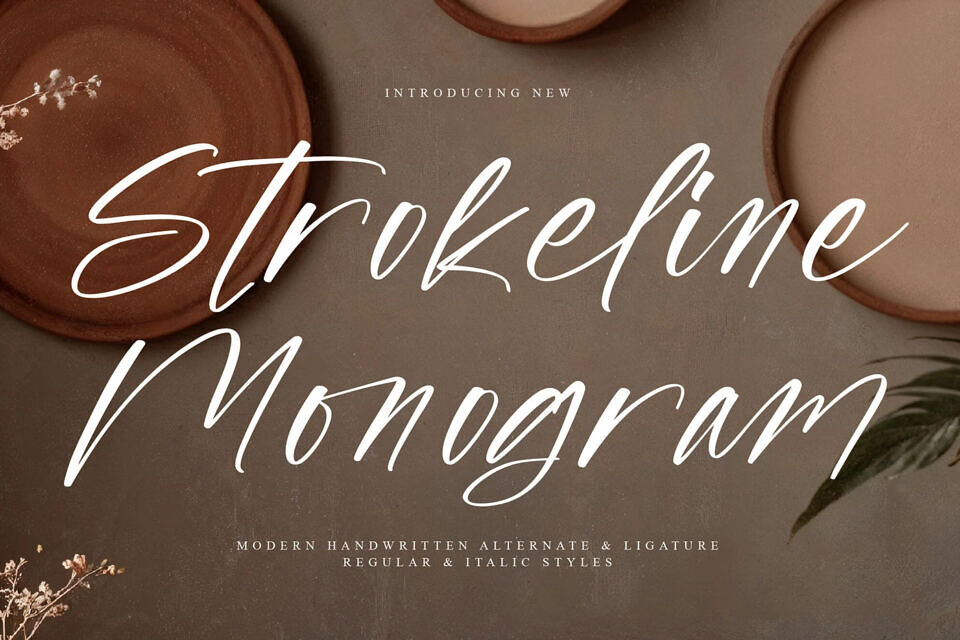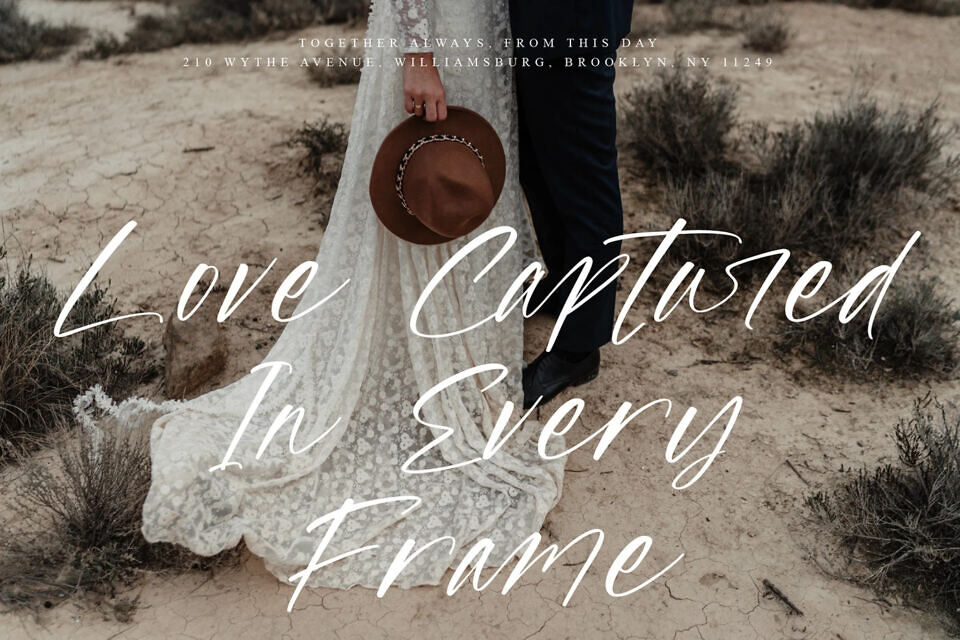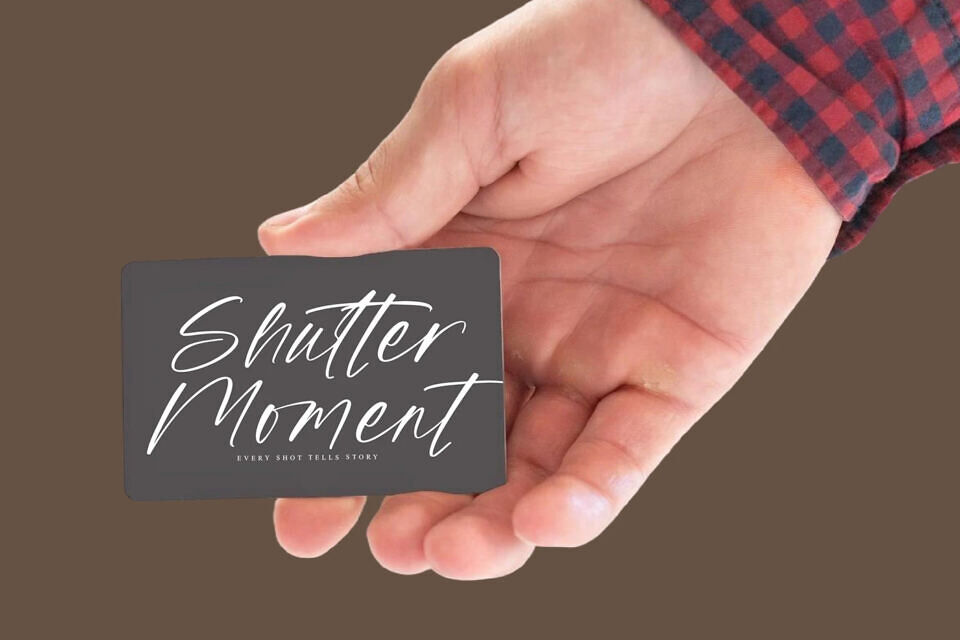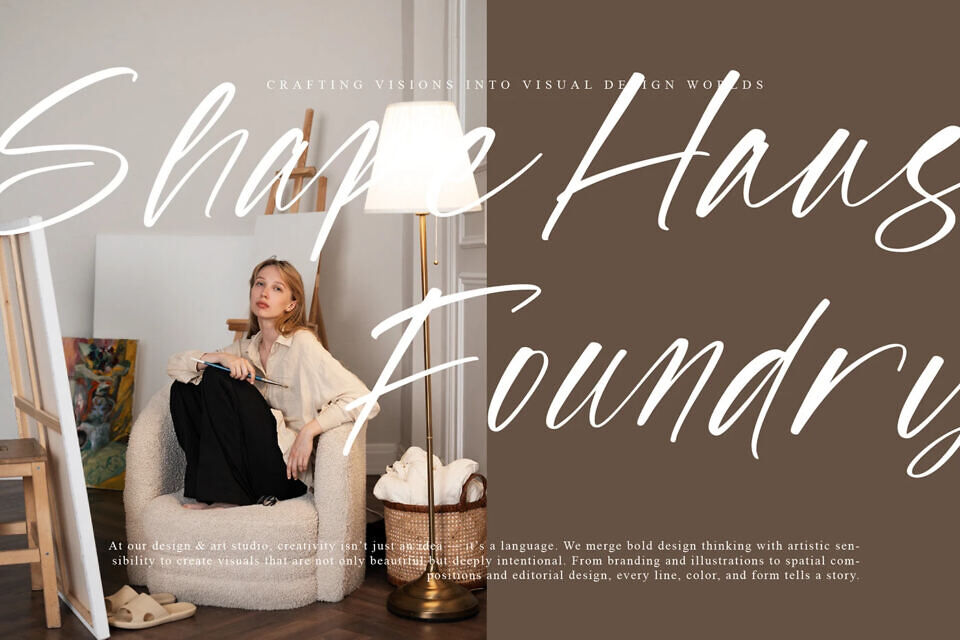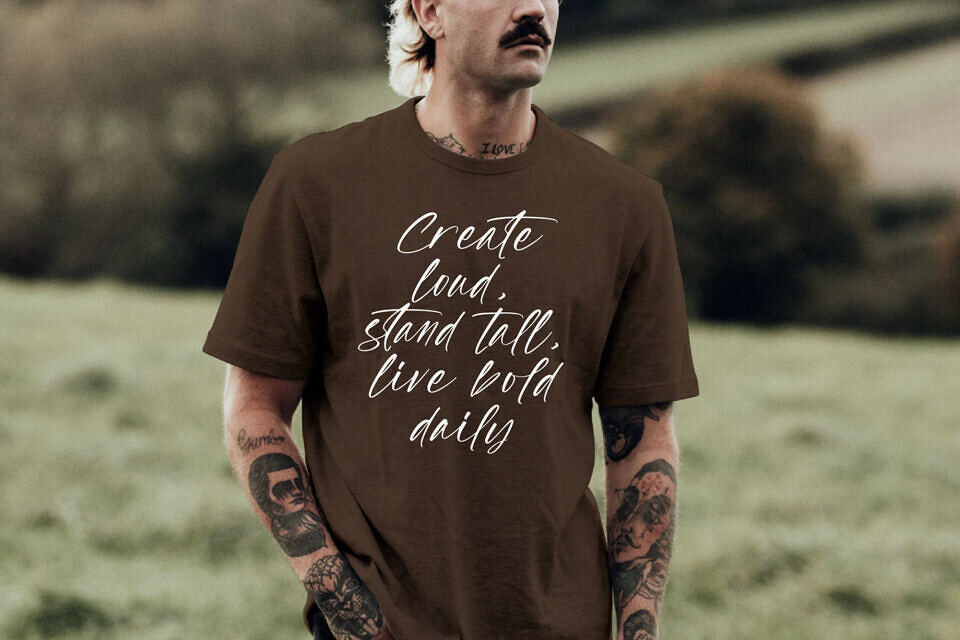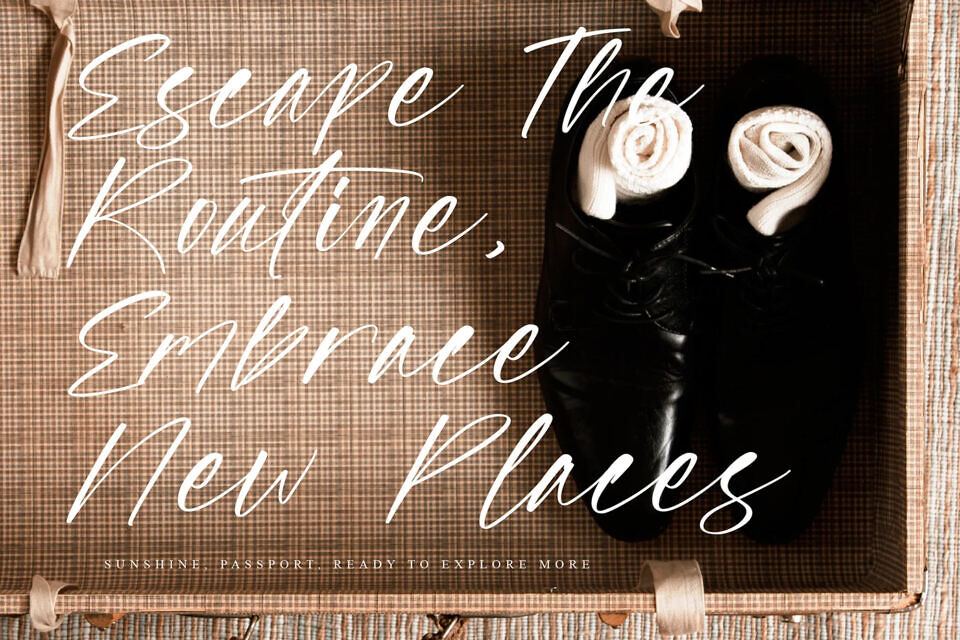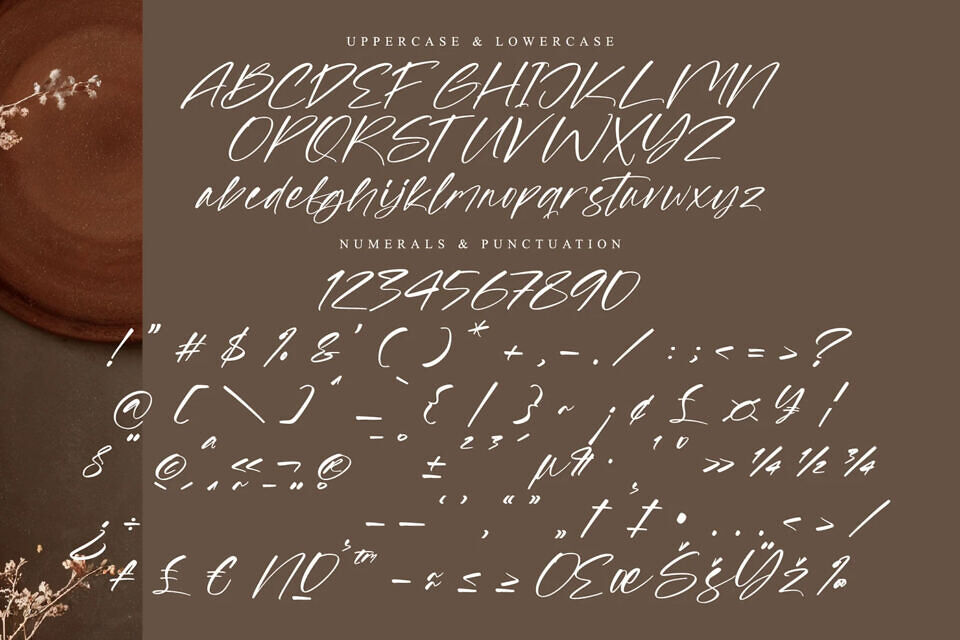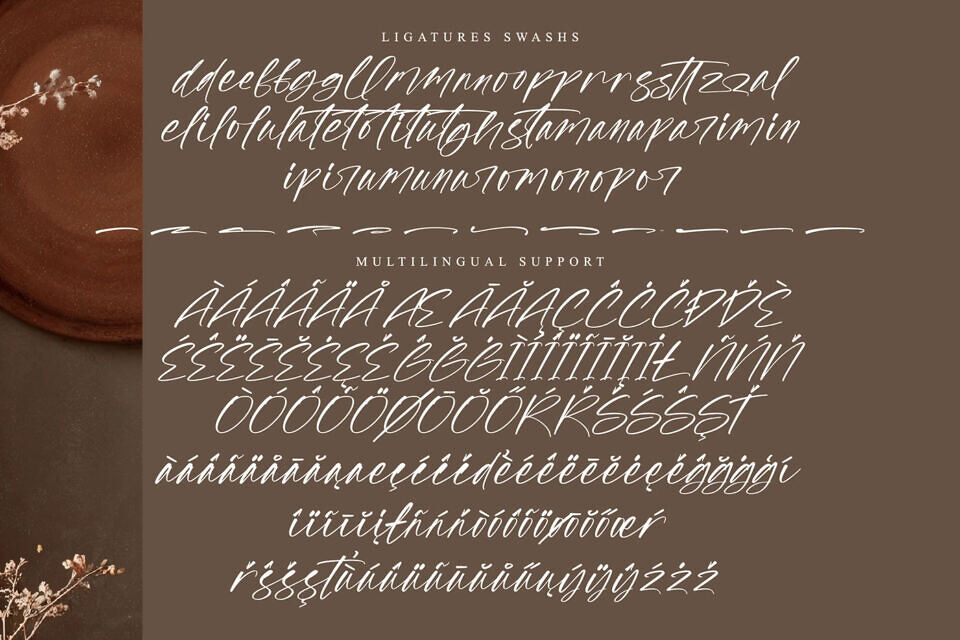
Strokeline Monogram is a sleek handwritten font featuring a modern script style with alternates and ligatures. With a balance of grace and confidence, it works beautifully for upscale branding, stationery, monogram design, and quotes that call for a refined yet artistic feel.